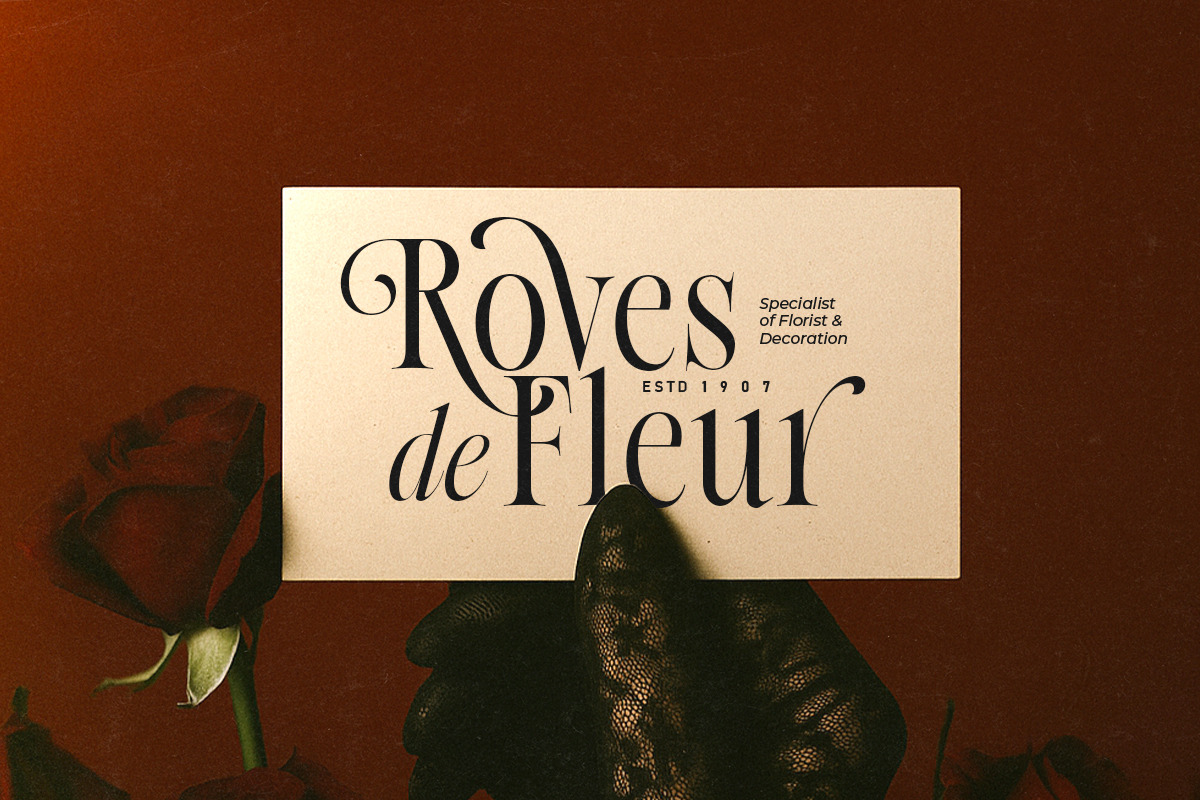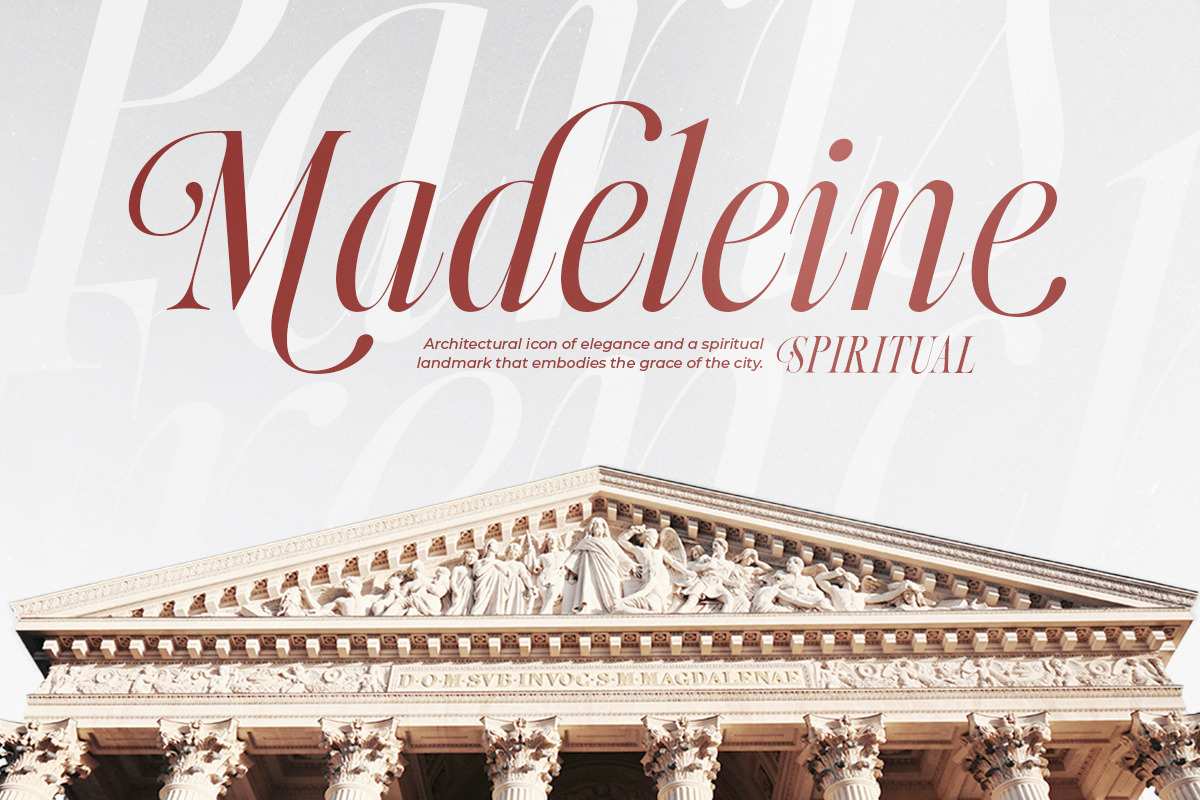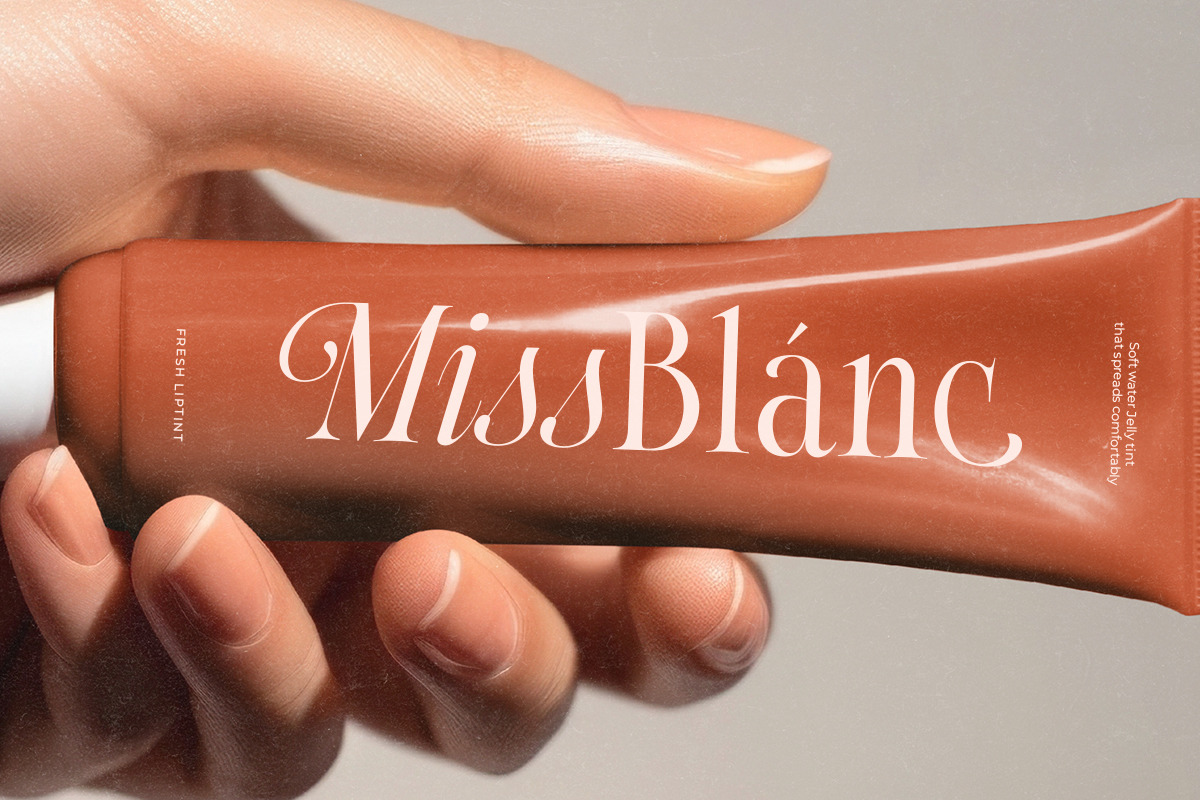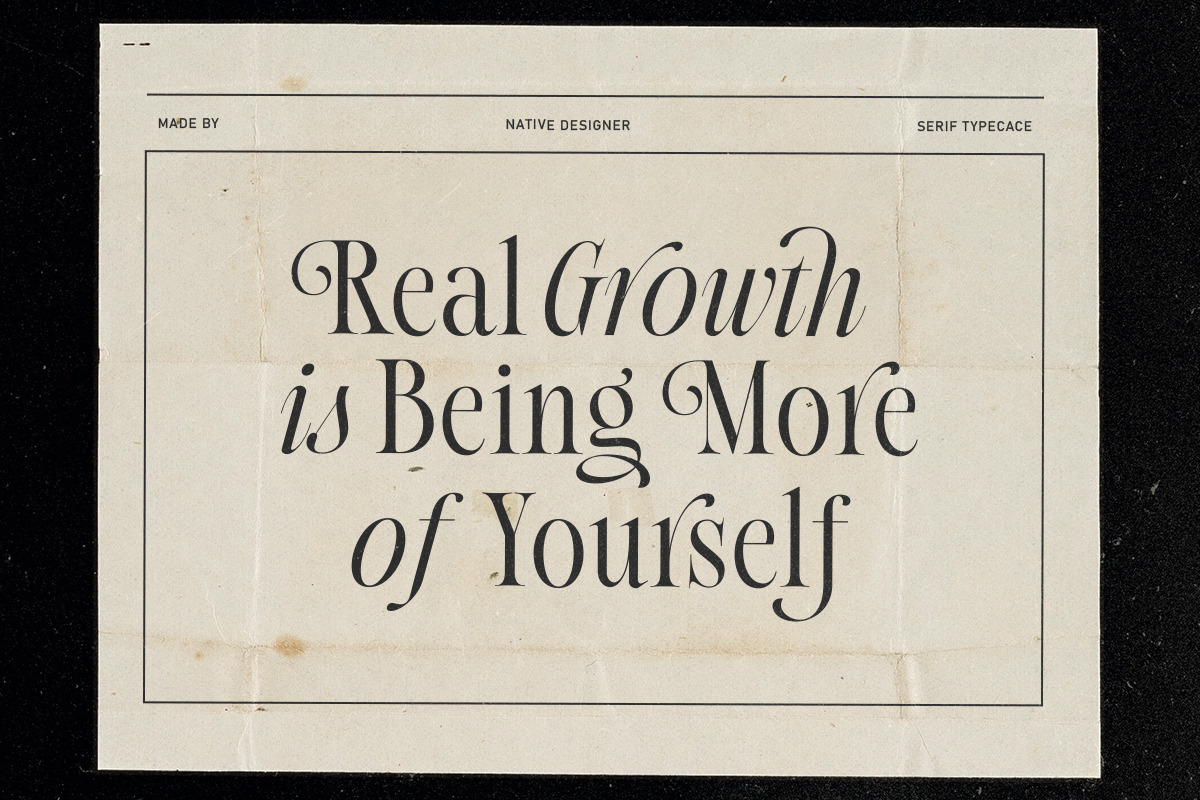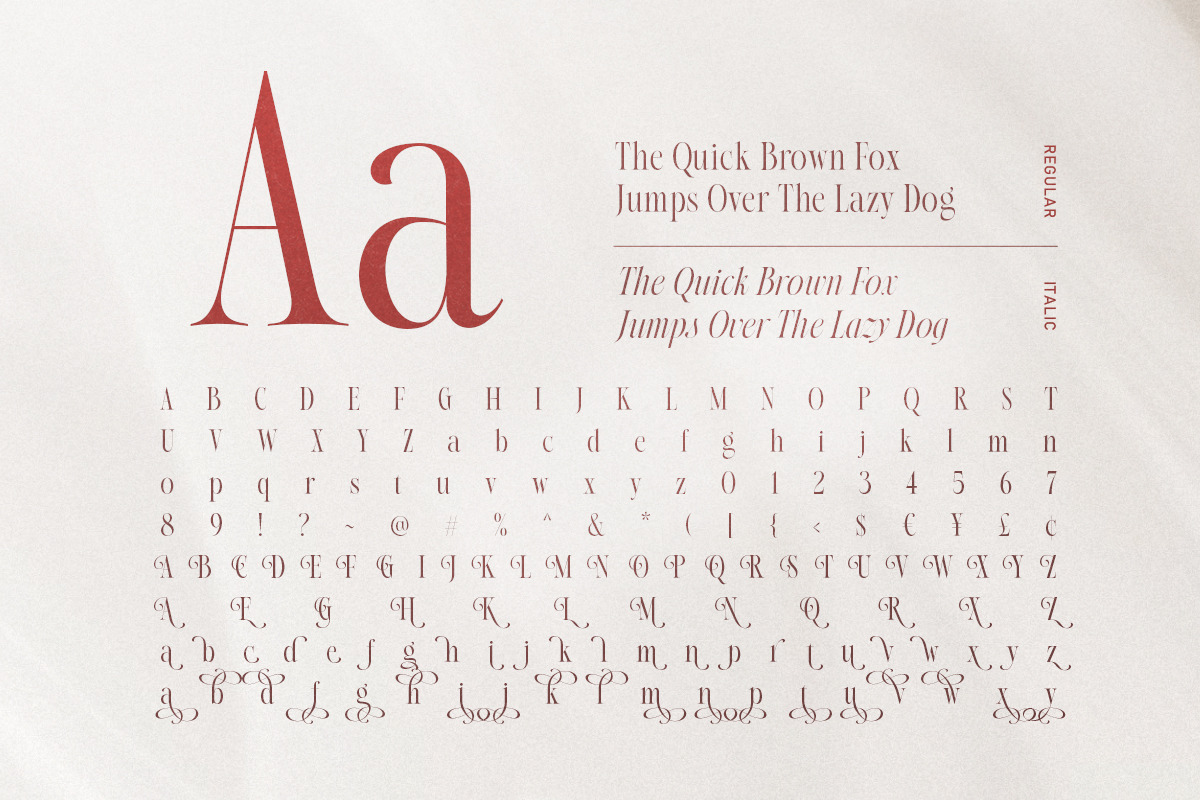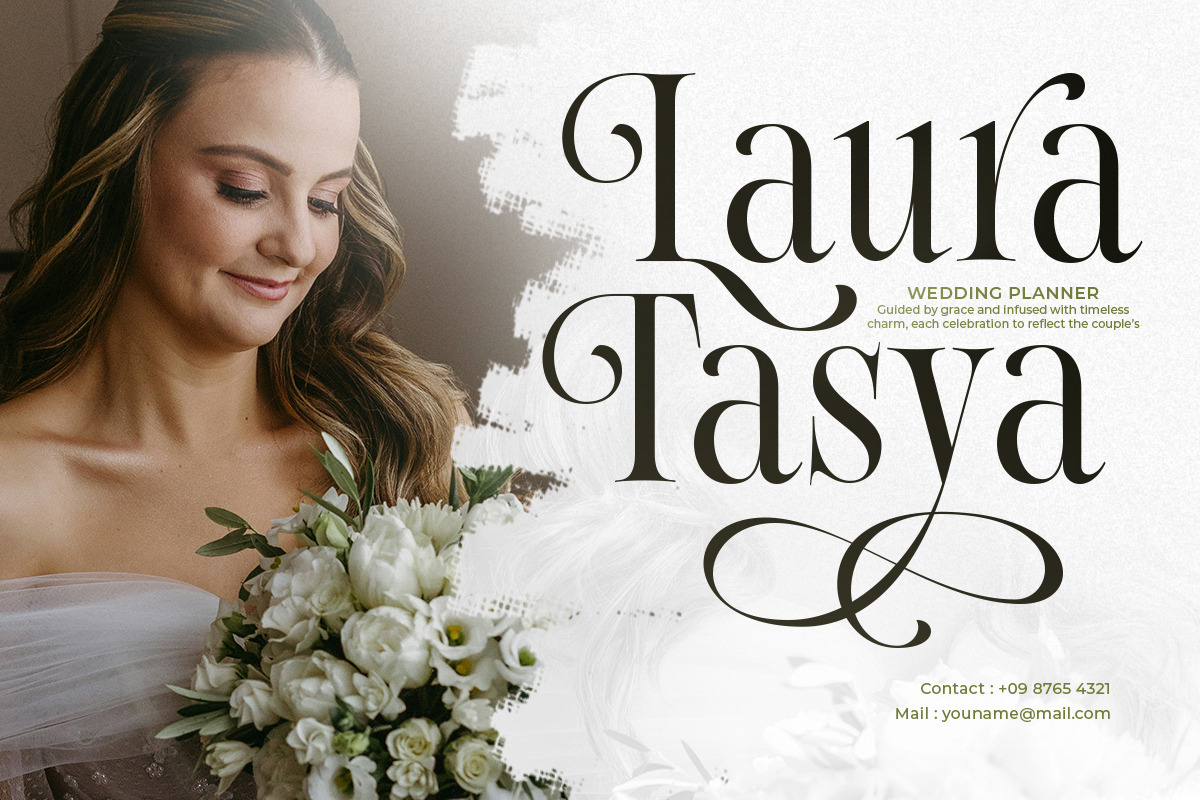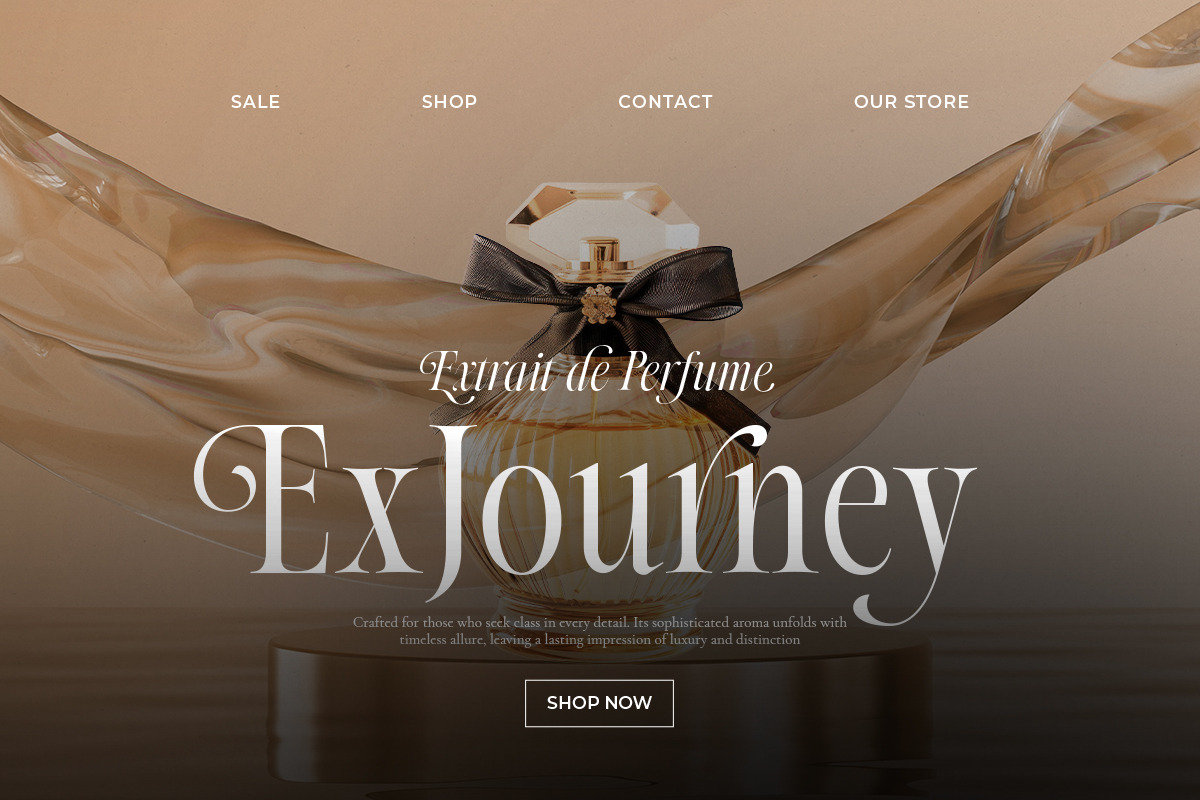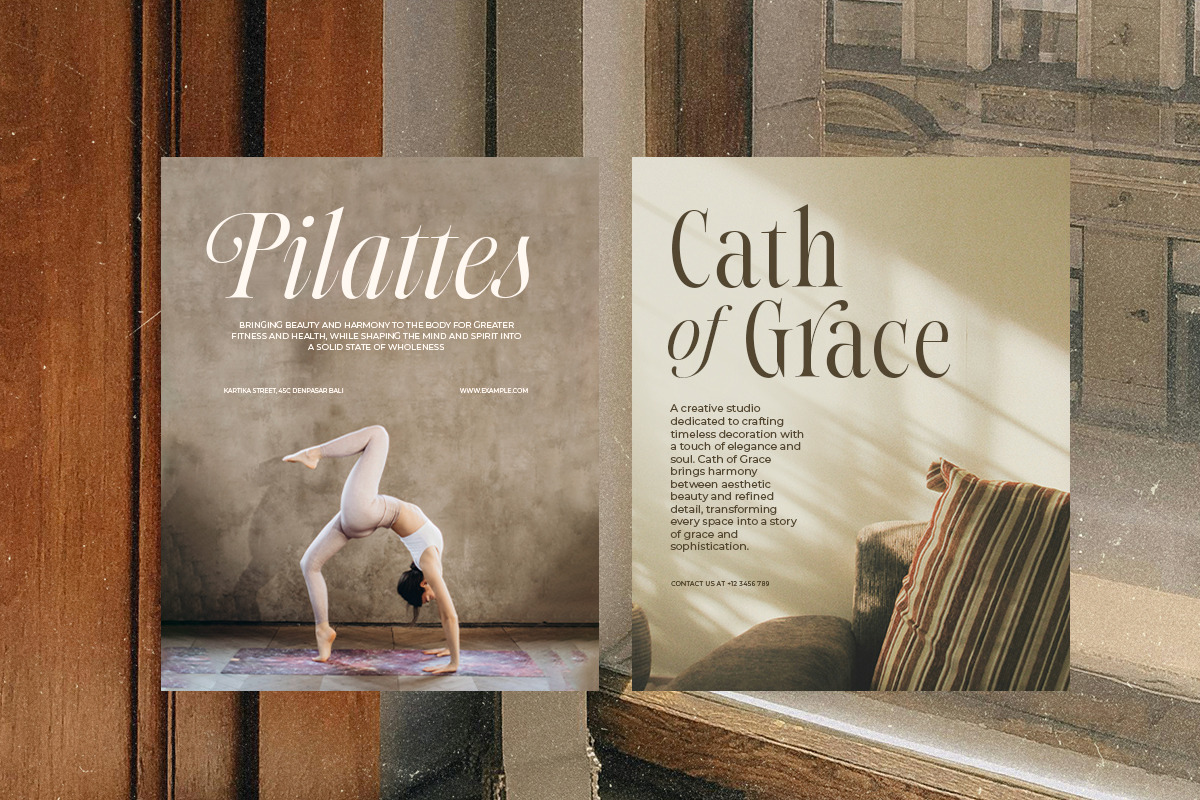
Native Designer - Delicate Serif
Introducing, Native Designer, an elegant serif with true italic
Native Designer is a classic yet modern serif family that have luxurious, and glamour looks. With true italic version, you can use this font family for any purposes such as wedding invitations, logo, and branding. With stylish alternates in both style, this font will make your design looks stunning and beautiful. Native Designer also support multi language!